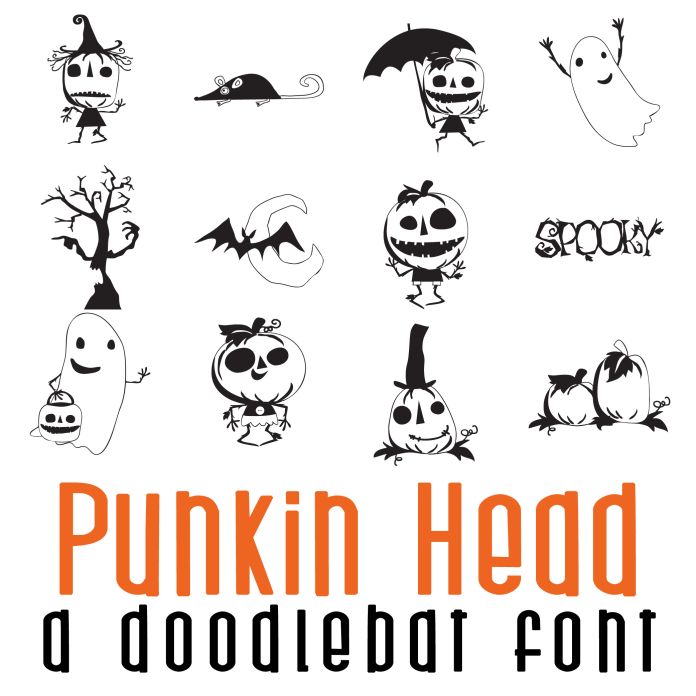
This doodlebat font features 26 adorable halloween images and Pumpkin heads! Perfect for Halloween, classrooms, teachers, gifts, decor, scrap book pages, planner stickers and more!